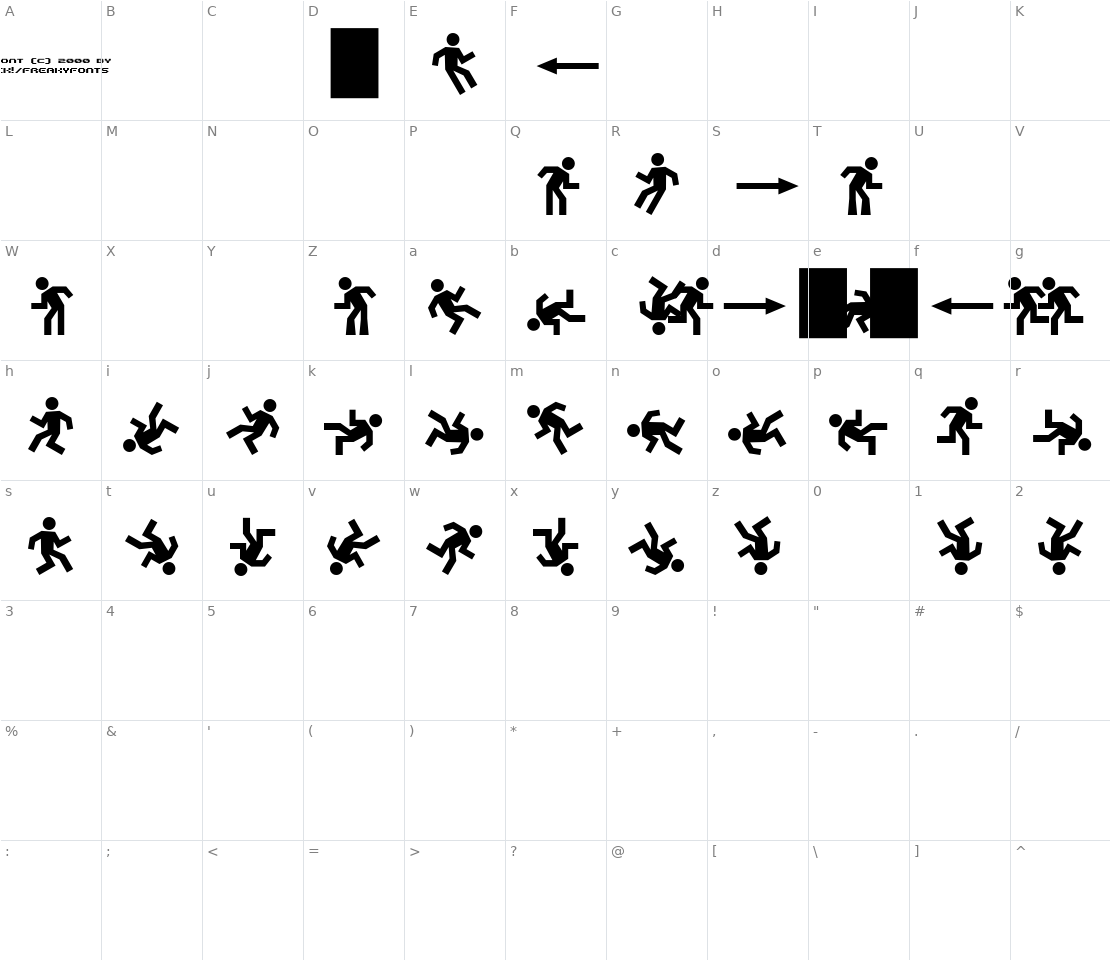
Dancefloor Exit
Dancefloor Exit is a pictogram dingbat font from Freaky Fonts built around running figures and exit-style icons, the kind of simplified human silhouettes you'd find on emergency signage. It's a niche but handy resource for wayfinding mockups, instructional graphics, or any project that needs quick, clean people-shaped symbols without hunting through icon libraries.